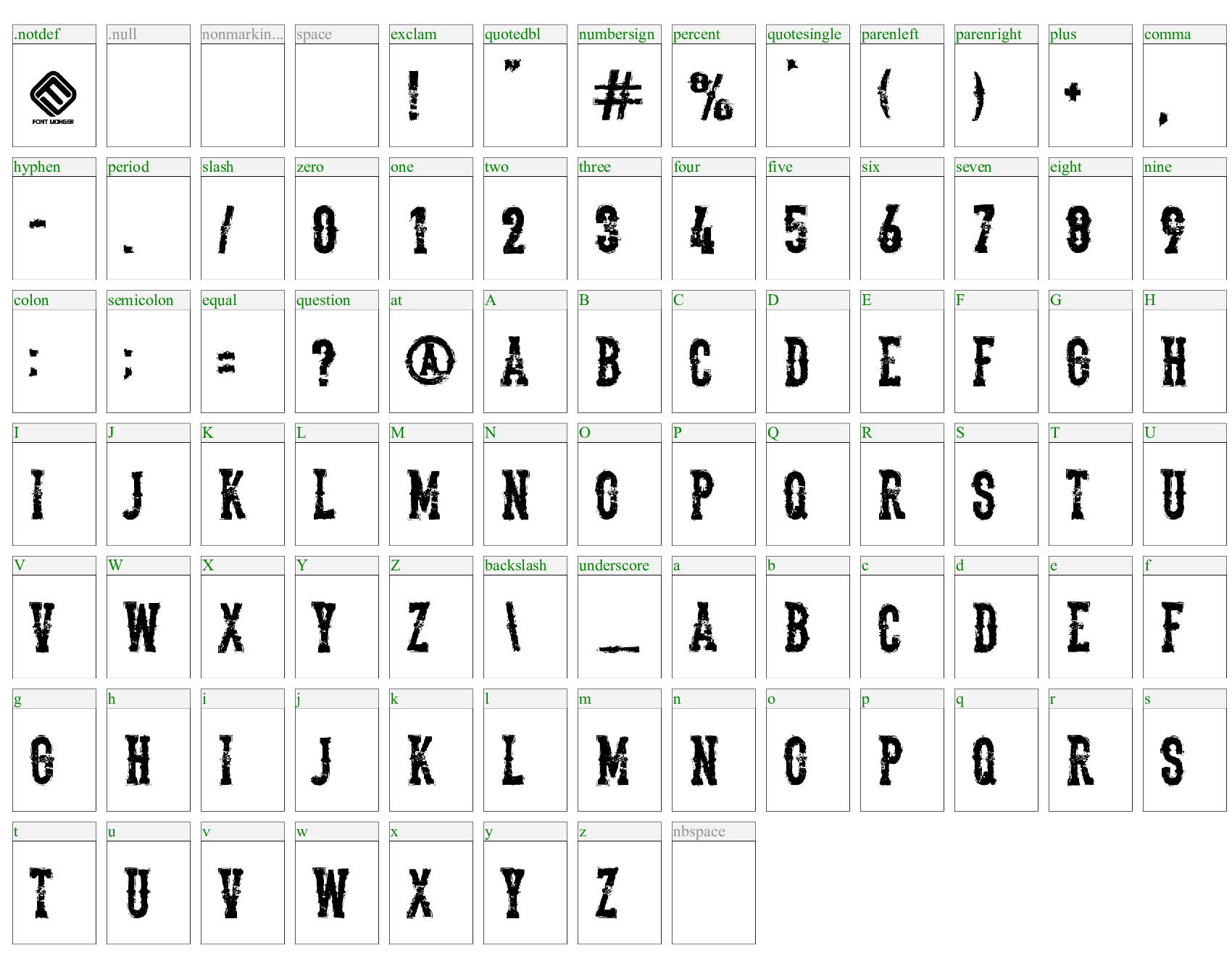
Lowercase: Same as uppercase, scaled down in size
Numbers: Yes
Symbols and Punctuation: Yes, limited - check image below for available characters.
Theme: Western, Eroded